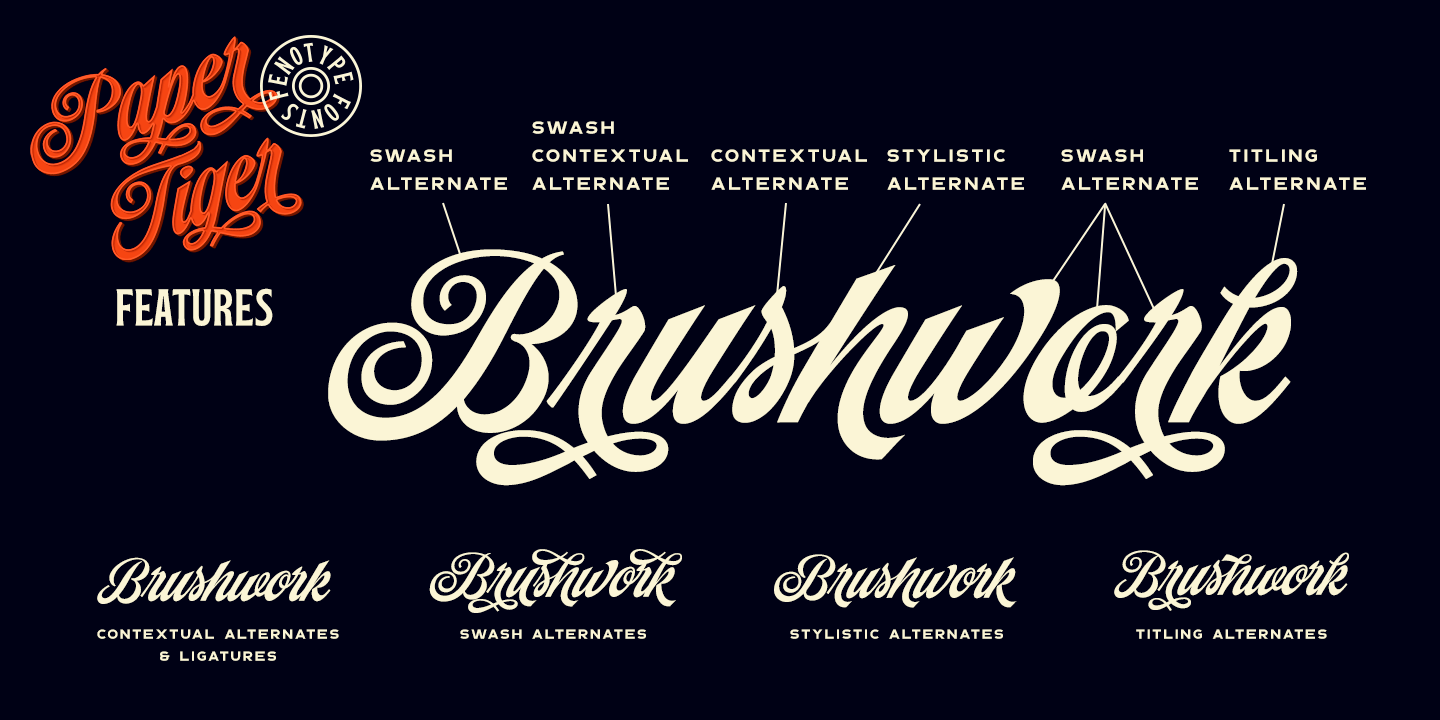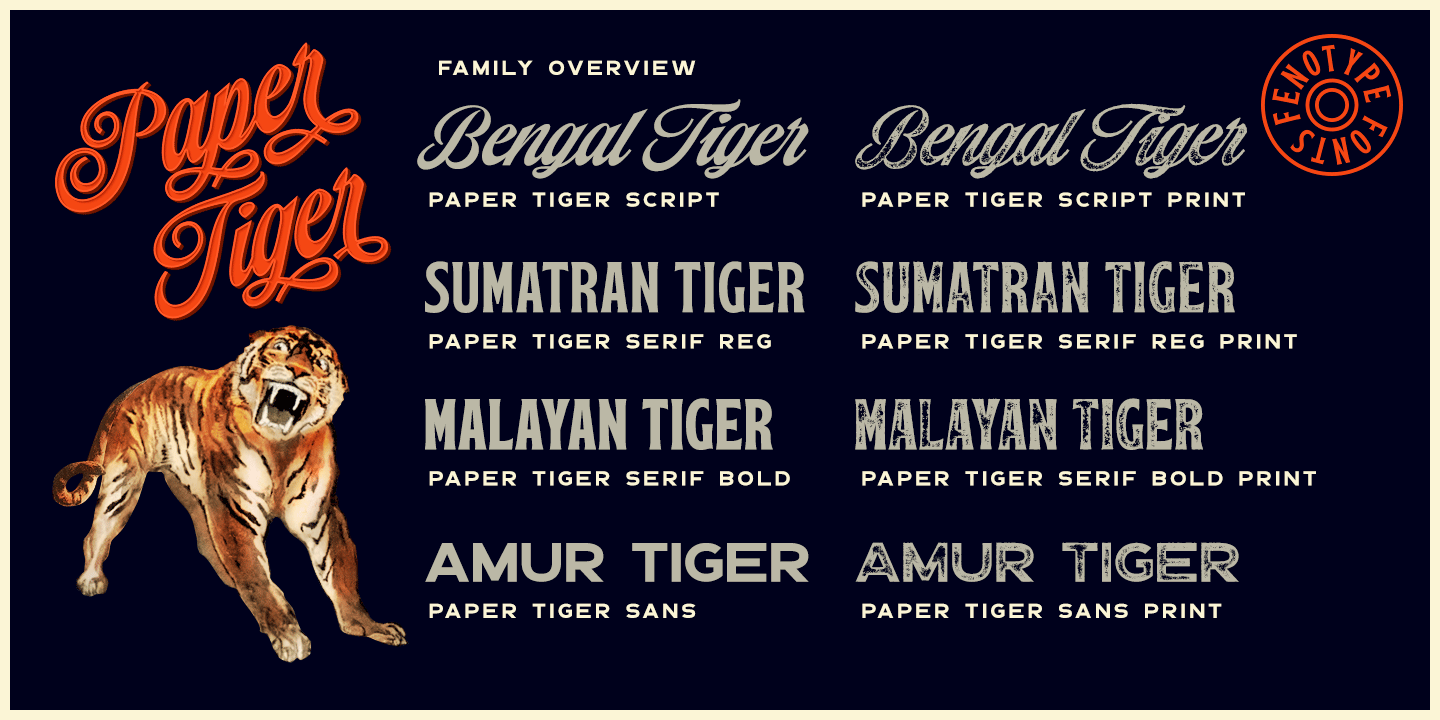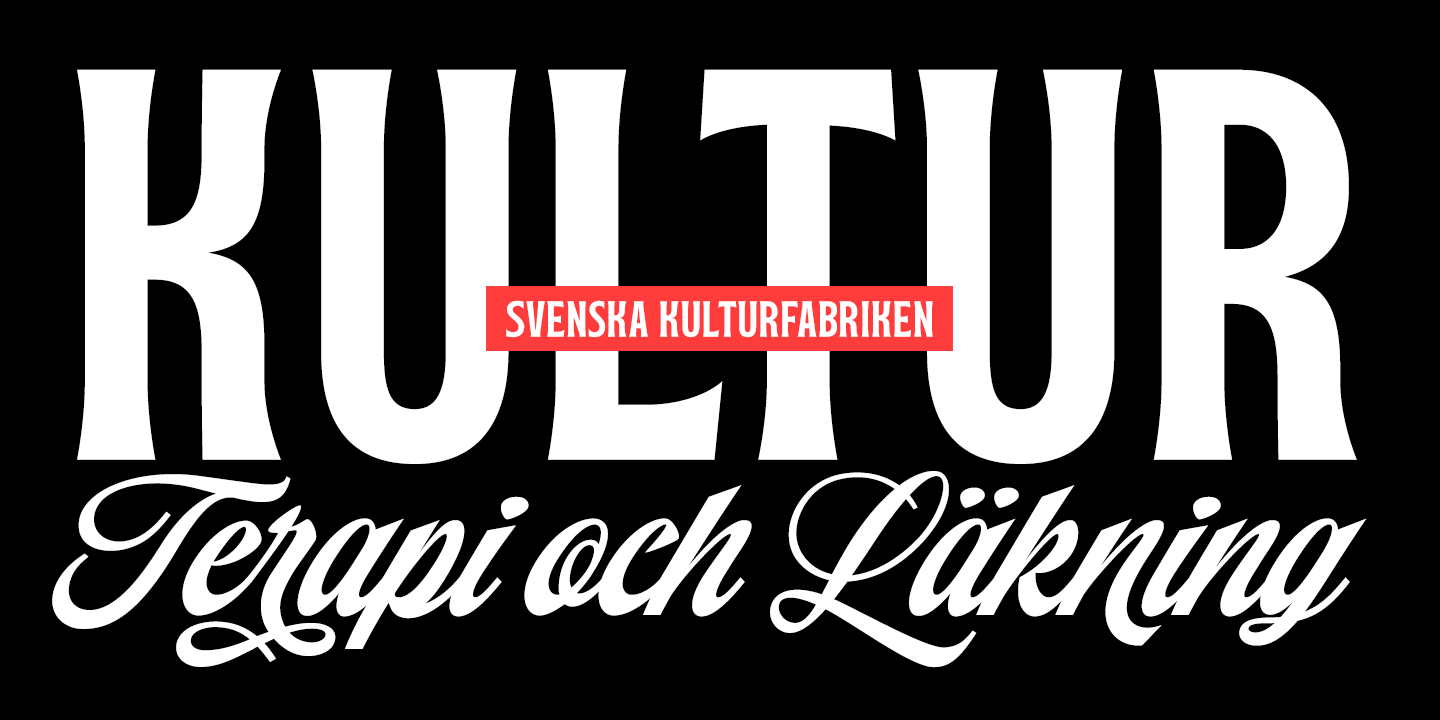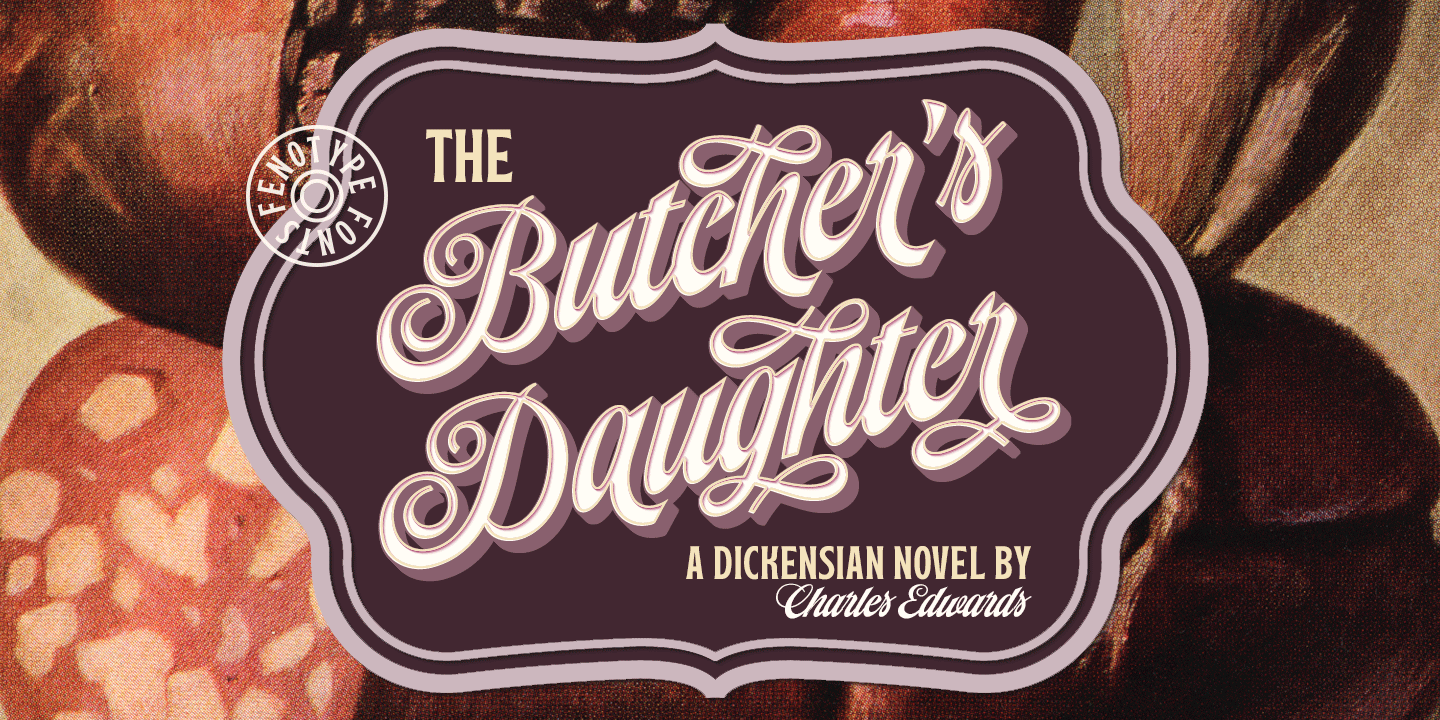
Paper Tiger is a splendid display font package by Fenotype. It\’s a Victorian Script accompanied by a condensed flared serif in two weights and a chunky sans serif. Together they make a powerful set for creating logotypes, posters, packaging design, headlines…